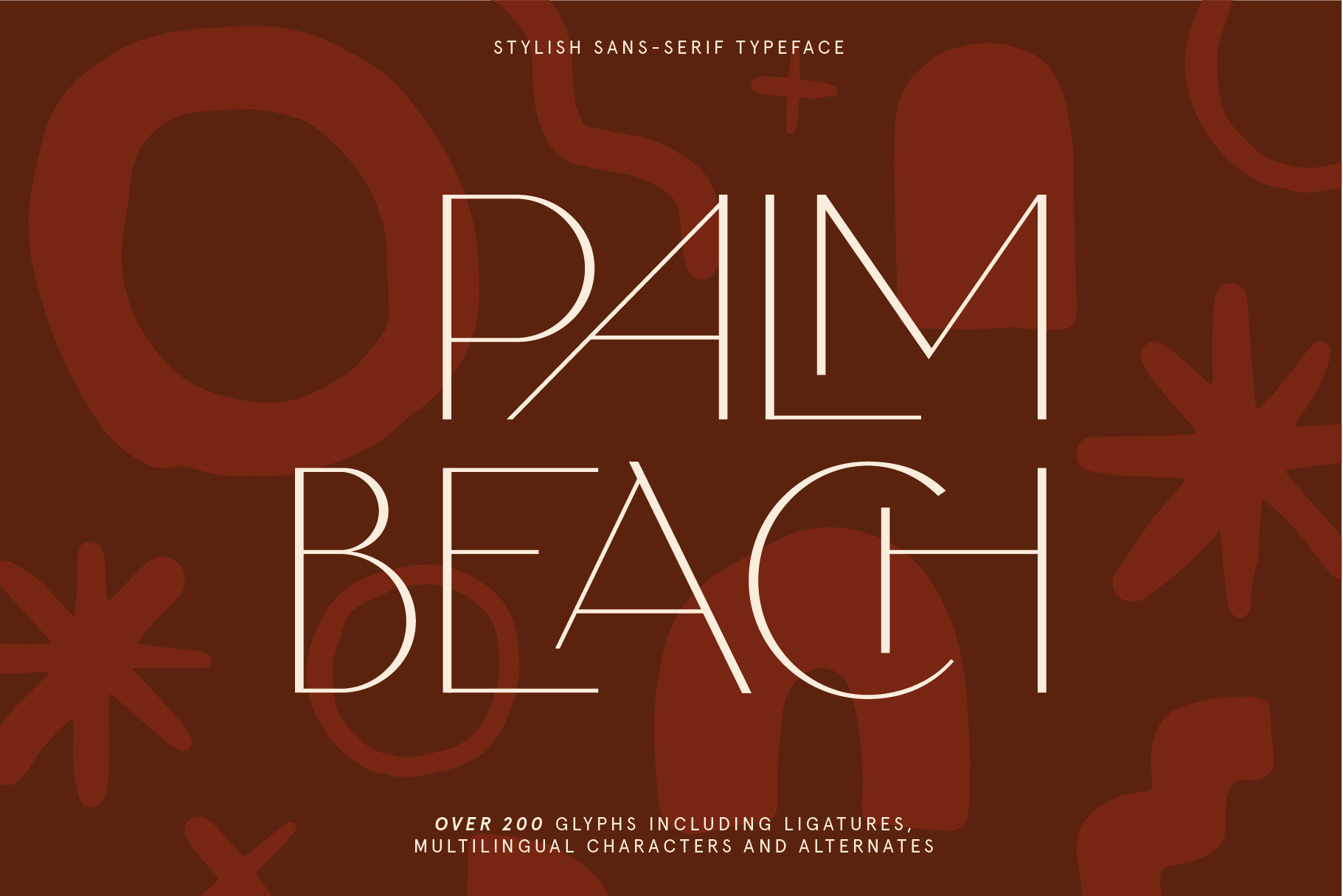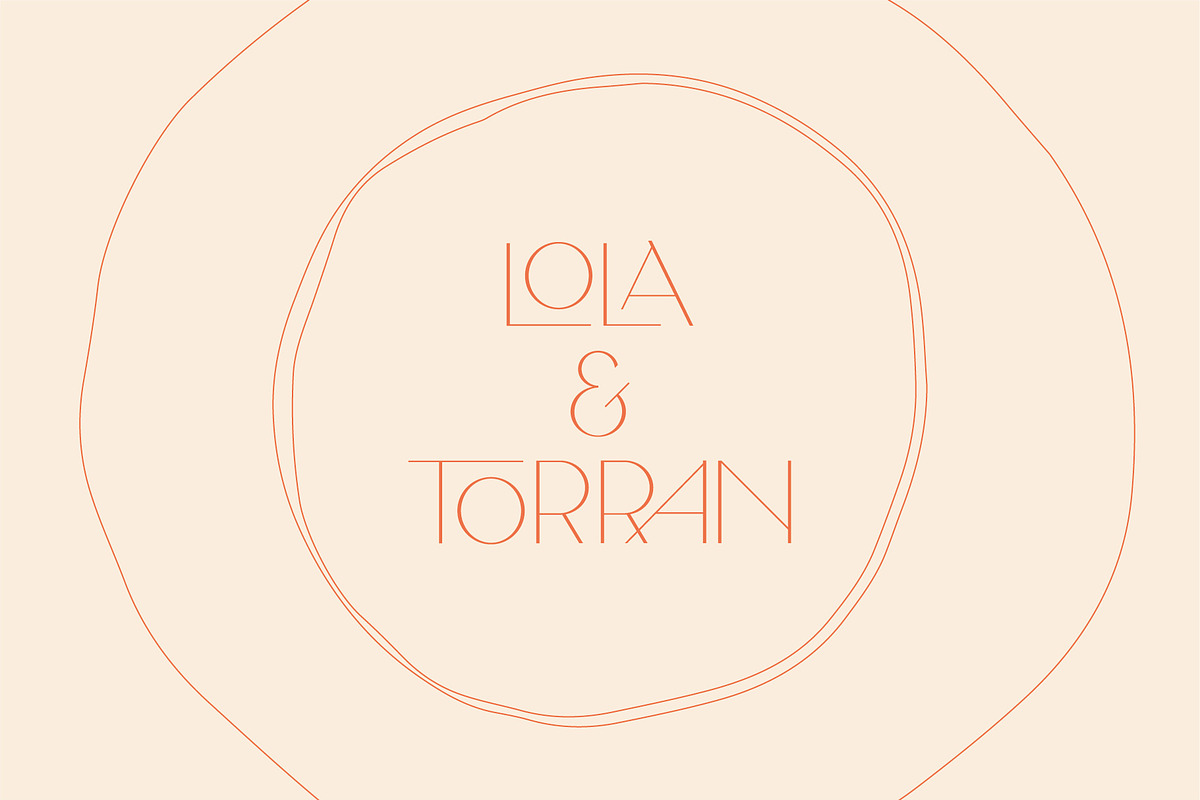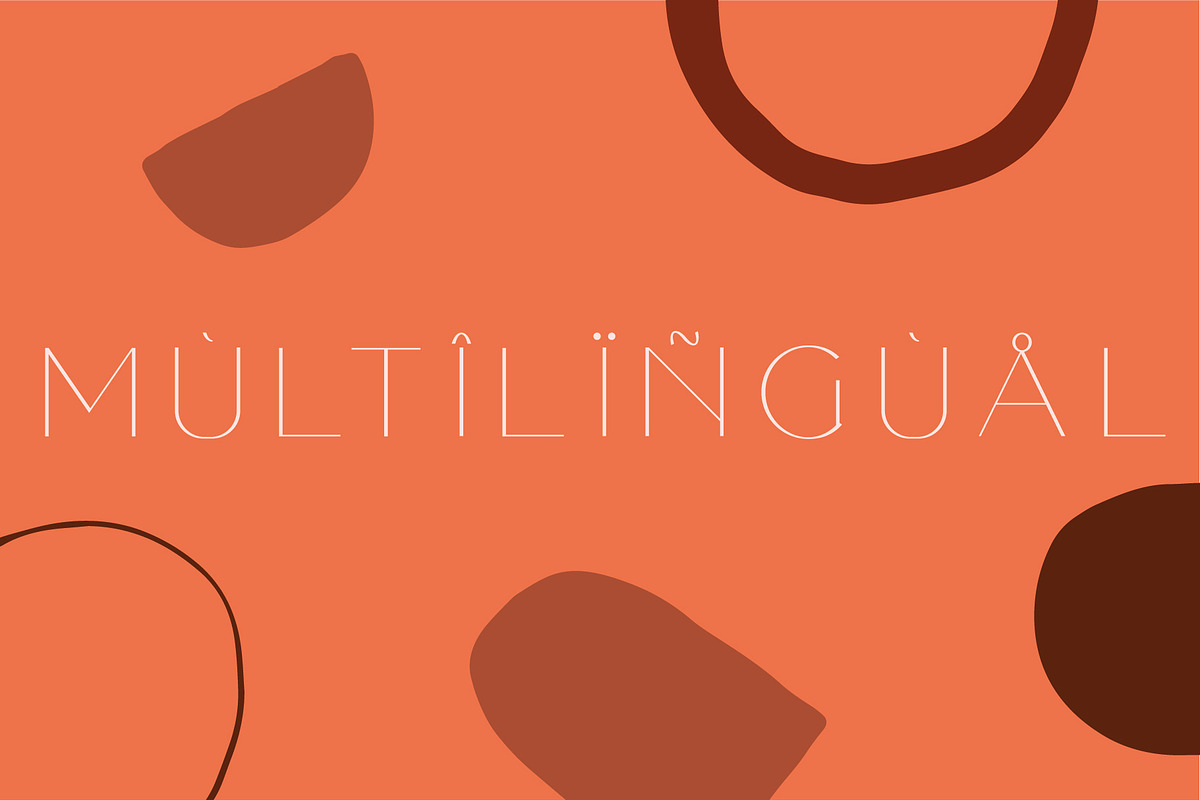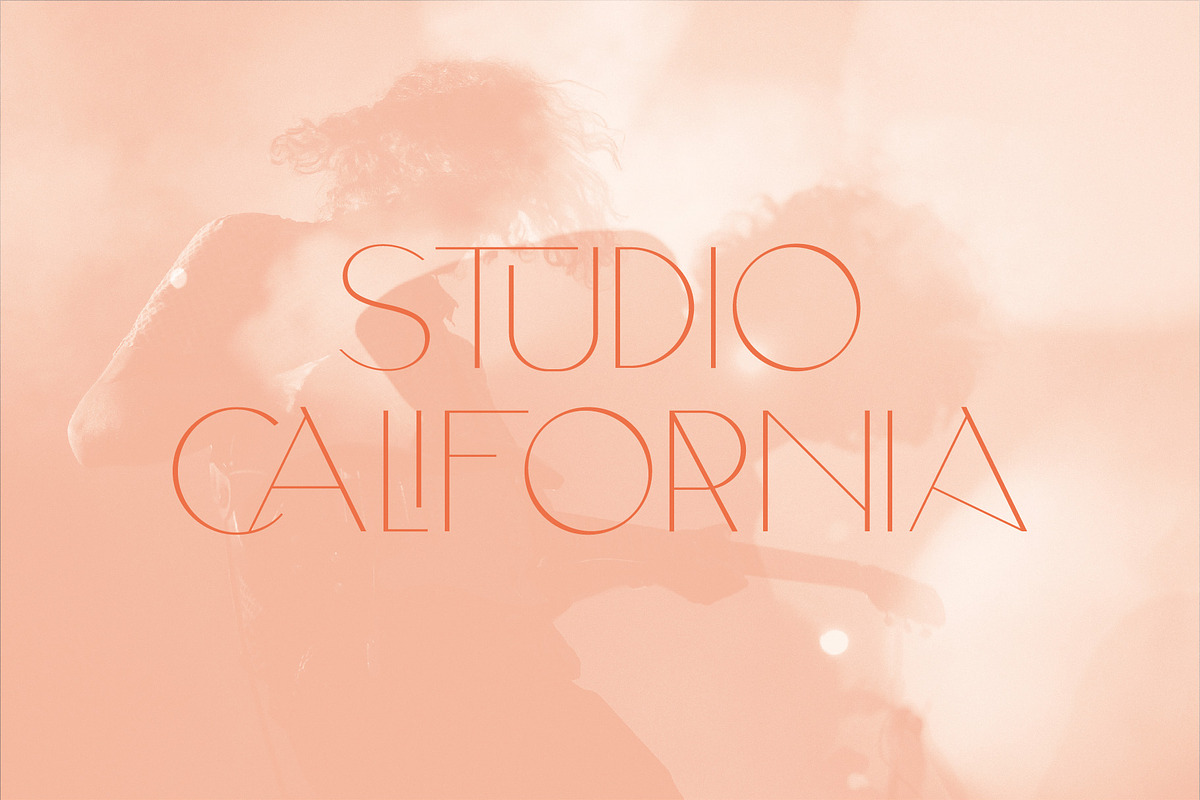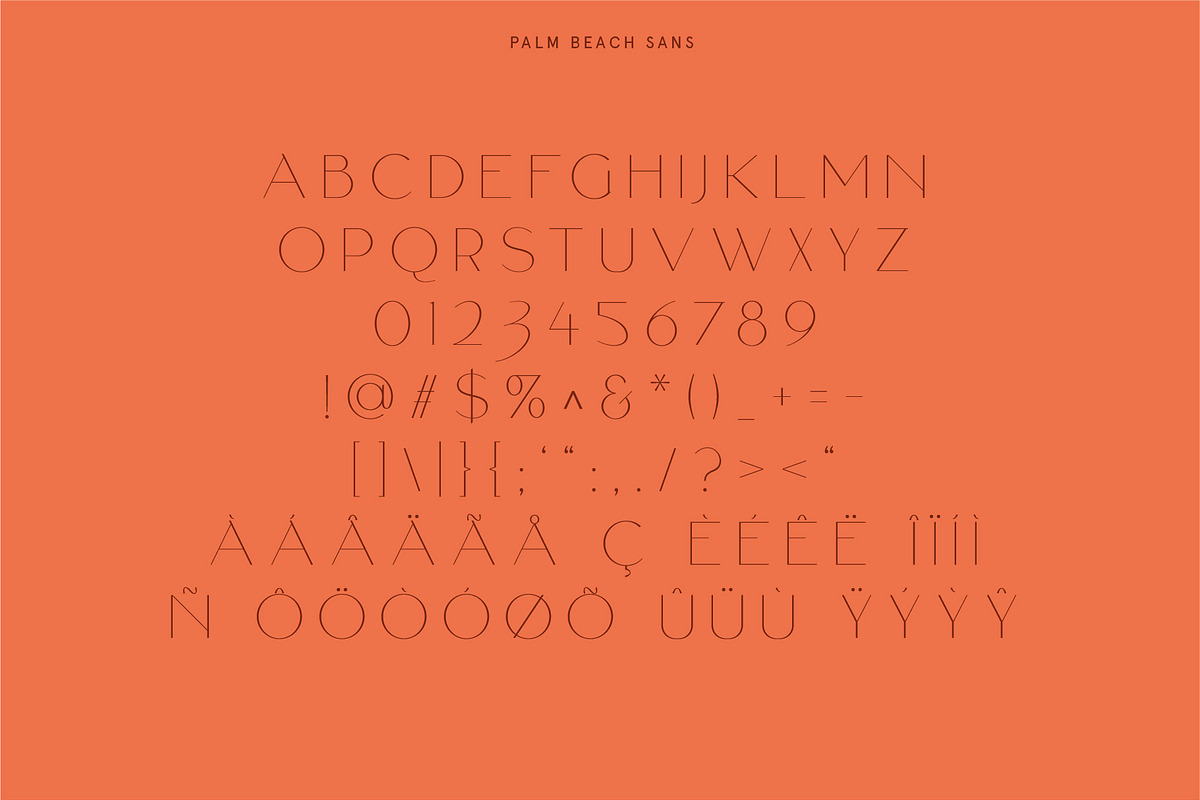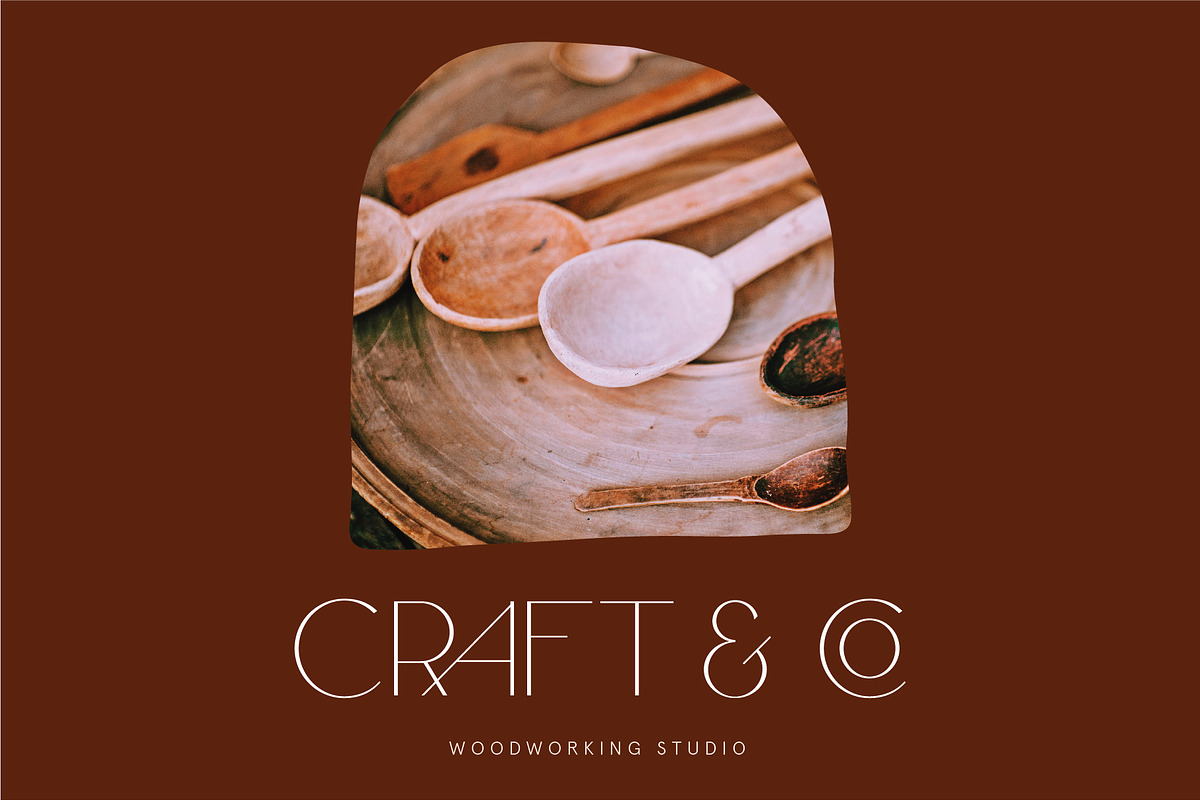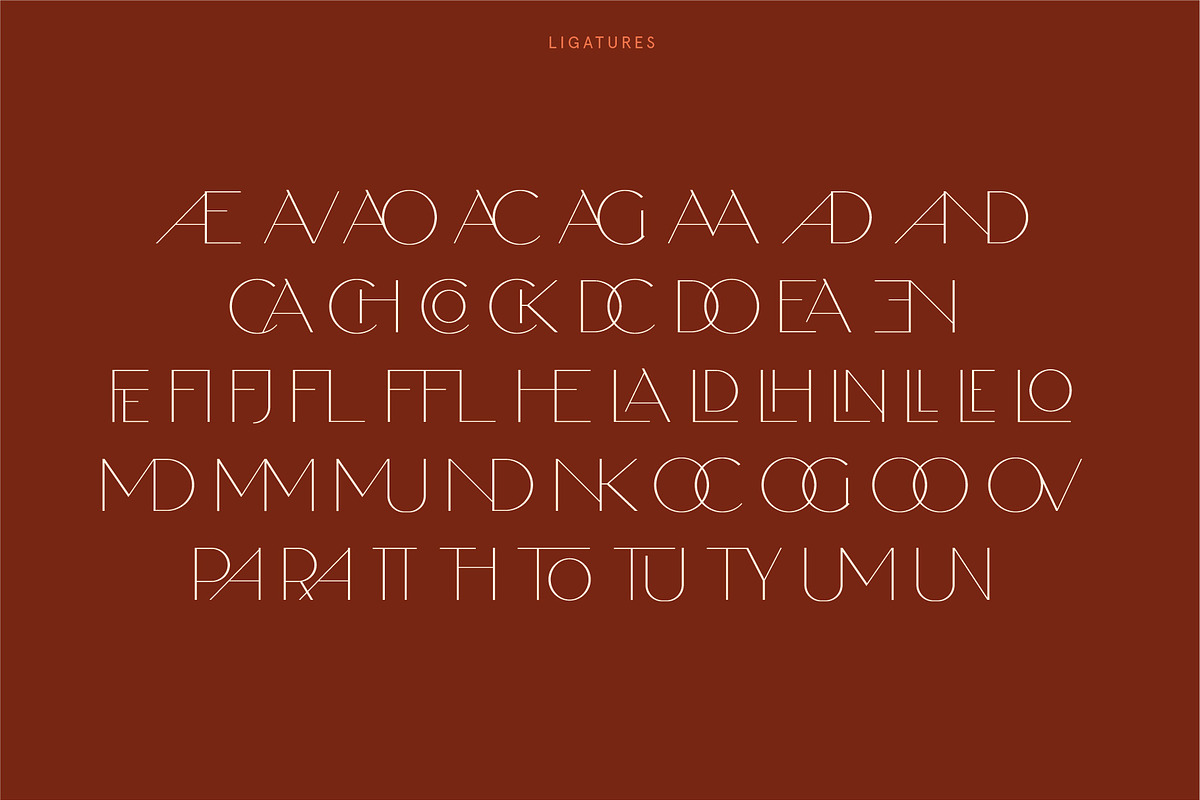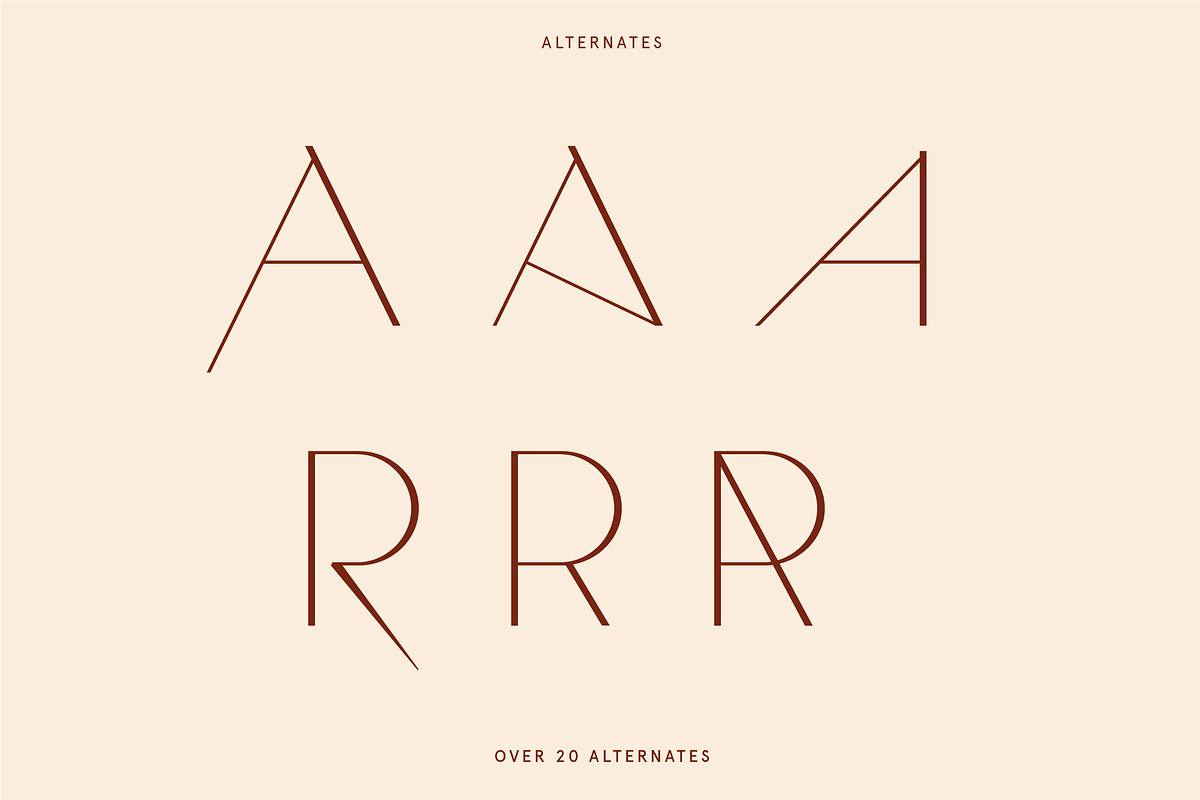
Palm Beach Ligature Summer Font Duo
Palm Beach is a contemporary and stylish display sans-serif typeface. It works best for use in title design such as invitations, signboards, book titles, stationery designs, quotes, branding, logos, greeting cards, packaging designs, posters, and more.
It comes with over 200 glyphs providing you with a wide range of interesting and unique ligatures and alternate characters.
- Punctuation & numbers
- Alternate letters
- Uppercase letters (lowercase are the same)
- Multi-language support
- Over 200 unique glyphs
- 50+ unique and stylised ligatures
- 20 vector shapes